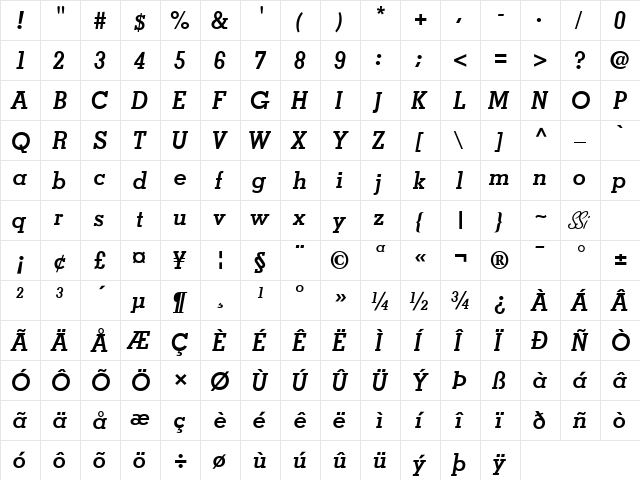
Jaak SSi Bold Italic
Design Context for Jaak SSi Typeface
Jaak SSi takes a measured approach to typography — its balanced proportions and neutral character make it a reliable workhorse for both digital and print work. The slanted form adds forward momentum and visual energy. The heavy weight commands attention and anchors typographic hierarchies.
Pro Tip: Use Jaak SSi for emphasis, pull quotes, and subheadings where its slanted energy can add rhythm to the layout.